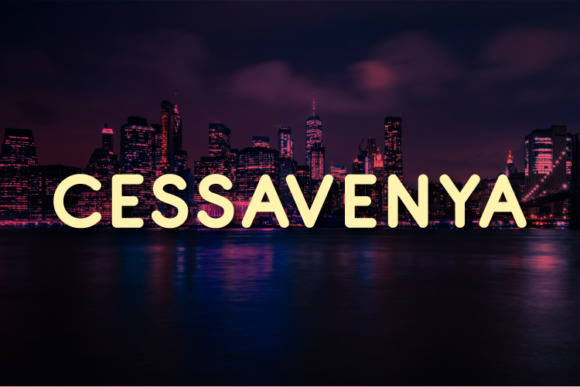
Immerse yourself in the realm of typography with Cessavenya, a modern sans serif font poised to captivate your digital designs. This masterpiece by A Christie seamlessly blends elegance and functionality, offering a versatile tool that effortlessly elevates any project.
Picture this: your website adorned with Cessavenya's clean lines and crisp curves, exuding an air of sophistication that draws visitors in. Its refined character adds a touch of allure to your content, making it more readable and engaging. Watch as your bounce rates plummet and user engagement soars thanks to Cessavenya's magnetic charm.
Step into the realm of branding and discover the transformative power of Cessavenya. Craft logos that exude authority and leave a lasting impression. Design business cards, brochures, and flyers that command attention and make your brand shine. As your visual creations take shape, witness how Cessavenya harmonizes effortlessly with your brand's identity, leaving an indelible mark on your audience's minds.
For those who dare to venture into the realm of UI design, Cessavenya awaits as your steadfast companion. Imagine crafting user interfaces that are both visually appealing and intuitively functional. Let Cessavenya guide your creative vision, seamlessly weaving together aesthetics and usability. Buttons, menus, and navigation elements infused with Cessavenya's grace will guide users through your digital landscapes effortlessly, leaving them enchanted and eager to explore further.
So, step forth, dear digital artist, and embrace Cessavenya as your font of choice. Whether you're a seasoned designer or just starting your creative journey, this modern sans serif masterpiece is your gateway to creating captivating digital experiences that leave a lasting impression. Unlock your imagination and let Cessavenya elevate your designs to new heights.